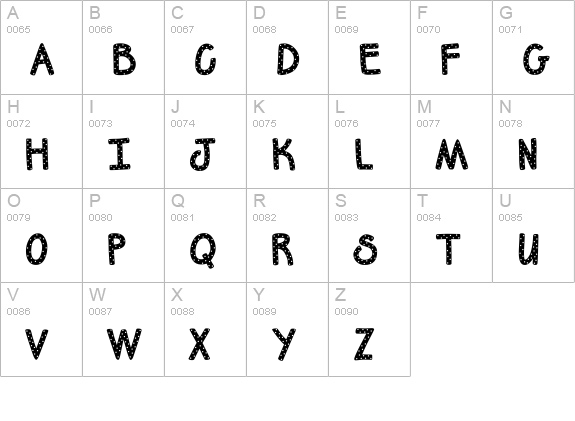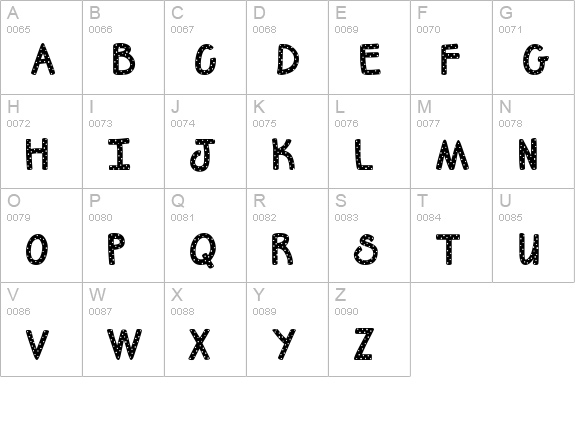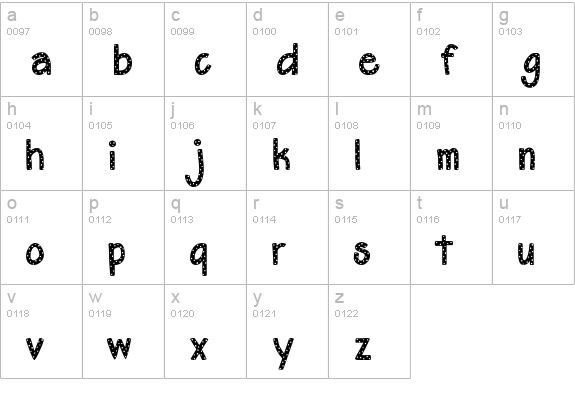
CK Frosting Font Details
Introducing CK Frosting font, a whimsical and playful typeface perfect for adding a touch of charm to your designs. This delightful font features soft curves and a unique hand-drawn style that will bring a sense of sweetness to any project. CK Frosting is free for personal and commercial use, making it a versatile choice for all your creative endeavors. You can freely download this font at FontsMarket.com and start adding a fun and frosted touch to your designs today.